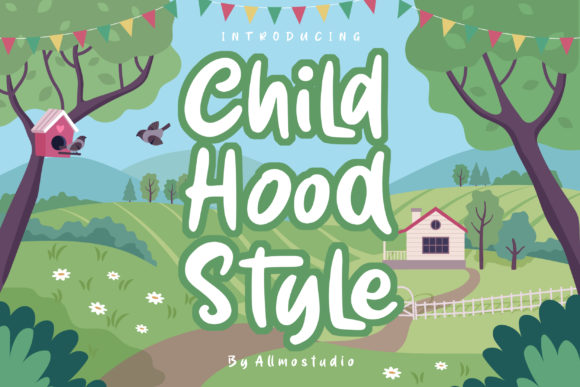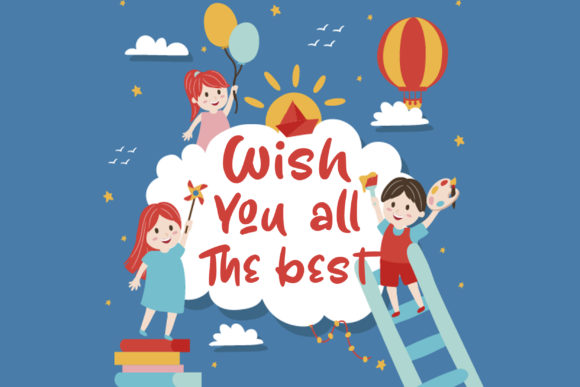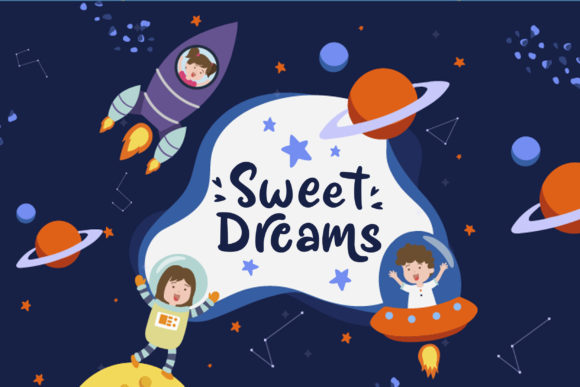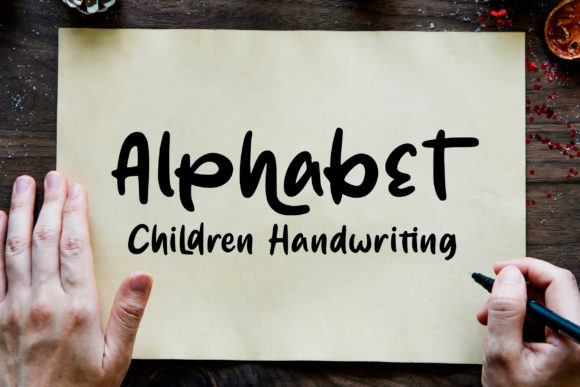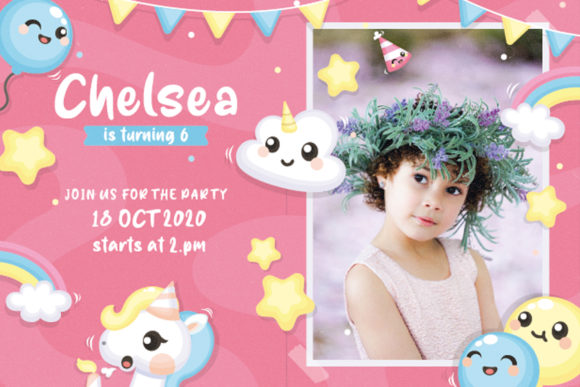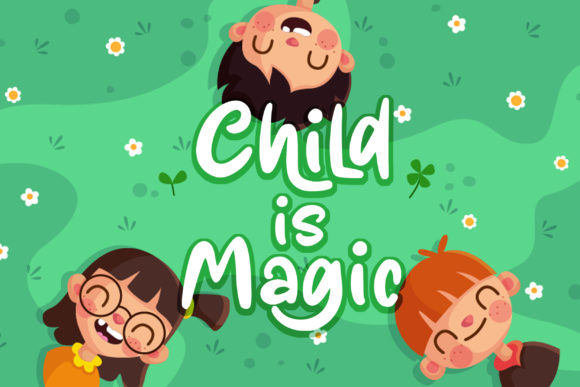
Childhood Style Font
About Childhood Style Font
Childhood Style is a quirky and incredibly friendly handwritten font. Its playful style makes it the right choice for a variety of projects, including kids and school contexts. Fall in love with this sweet font and add it to your favorites!